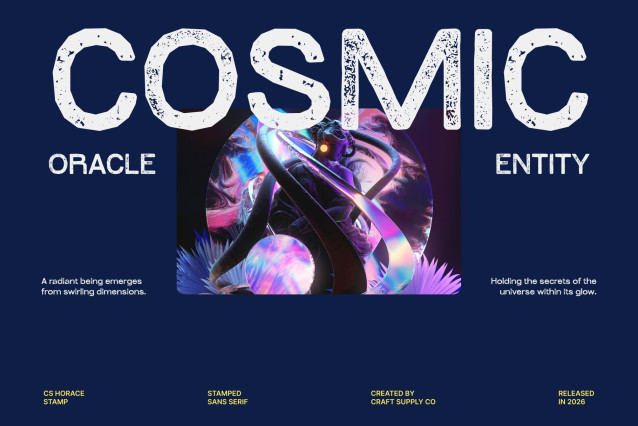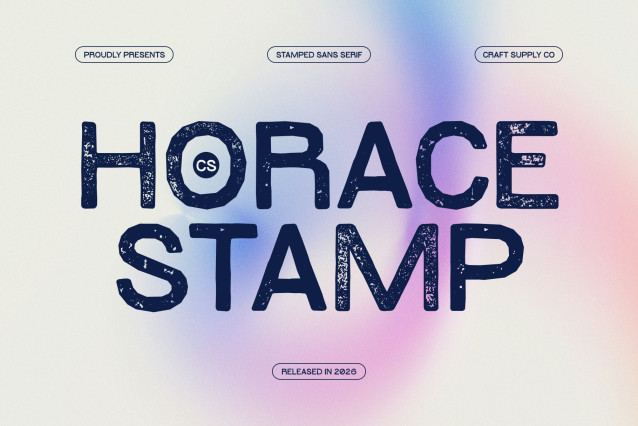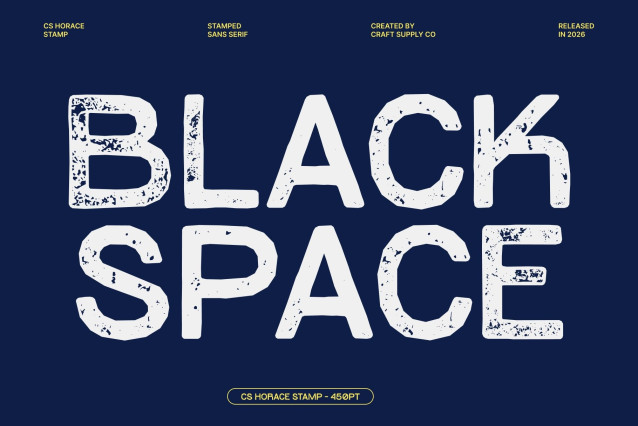
CS Horace Stamp Font
CS Horace Stamp – Contemporary Font: Where Modernity Meets Professional Elegance
Modern Sans Serif with Geometric Precision
This is a modern sans serif typeface that combines geometric precision with a grotesque style, resulting in a clean, balanced, and visually engaging design. Its crisp lines and proportional letterforms exude professionalism and sophistication, making it an excellent choice for high-end corporate and creative projects.
Minimalist Design with a Vintage Stamp Character
The minimalist structure of this font is enhanced by a distinctive stamp effect, introducing subtle imperfections, textured edges, and an organic inked appearance. This treatment gives the font a vintage character and artistic texture, blending modern clarity with the charm of classic print techniques. The result is a refined yet expressive aesthetic that keeps your message as the focal point while adding visual depth.
Exceptional Readability for Versatile Applications
Designed with readability in mind, this font remains clear and easy to understand across both print and digital media. Its balanced proportions and textured finish make it suitable for corporate documents, business websites, packaging, posters, and promotional materials without sacrificing legibility.